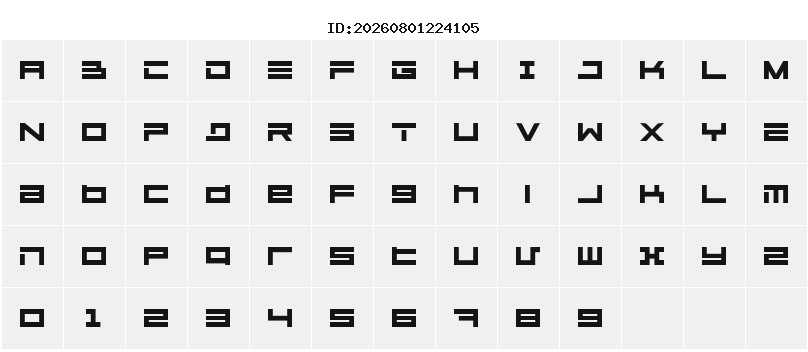
Megaton Extras Preview
• Font Name: Megaton Extras
About Megaton Extras.ttf
Megaton Extras.ttf is a modern, elegant sans-serif font designed for ultimate readability and visual harmony. Perfect for branding, headlines, web design, and print materials.